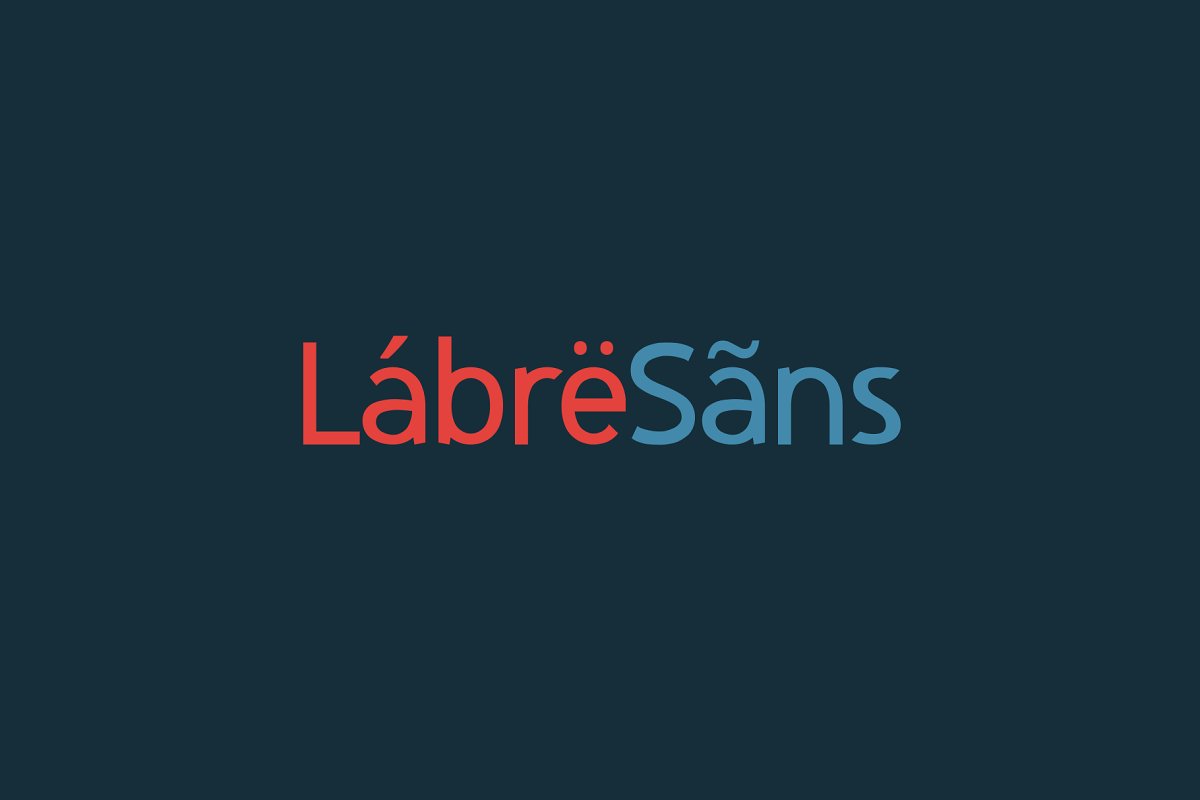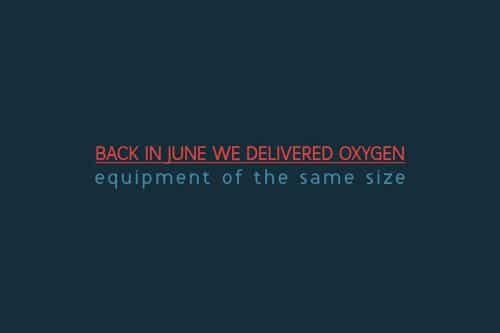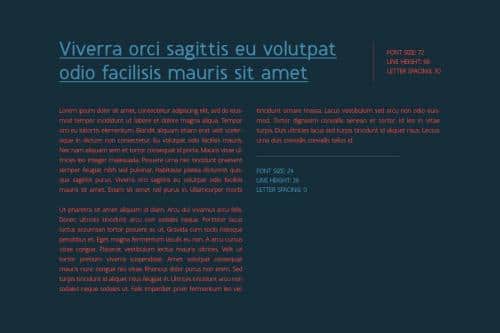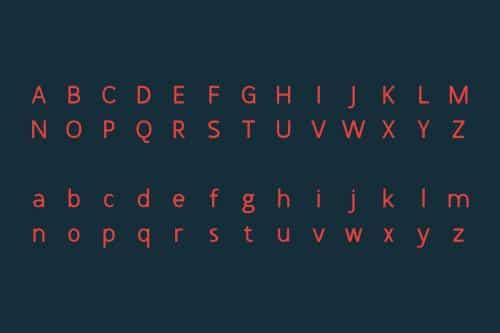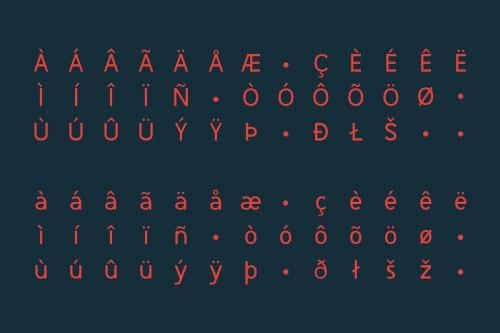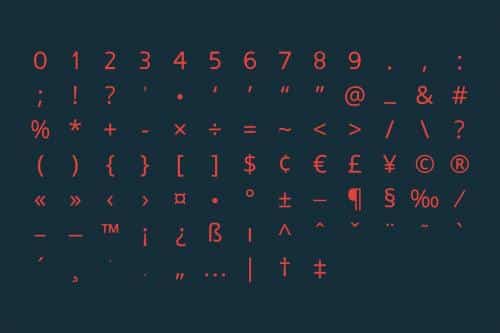
Labre Sans has soft, creating a friendly, fresh new look. Perfect anywhere you need a little smooth goodness, tons of special alternative glyphs, ornament and multilingual support.
It’s a very versatile font that works great in large and small sizes. Labre Sans is perfect for branding projects, Logo design, Clothing Branding, product packaging, magazine headers, or simply as a stylish text overlay to any background image.
- Designer: AndriyFM